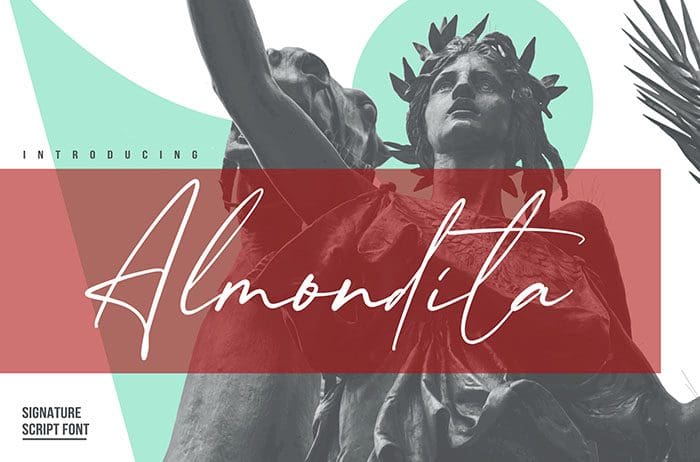
Almondita Signature Font
Almondita signature font feels equally charming and elegant. This stunning signature font is a stylish homage to classic calligraphy. It features a varying baseline, smooth lines, gorgeous glyphs and stunning alternates. Designed this font by Balpirick Studio. You can also search more freeĀ Fonts. Thanks!